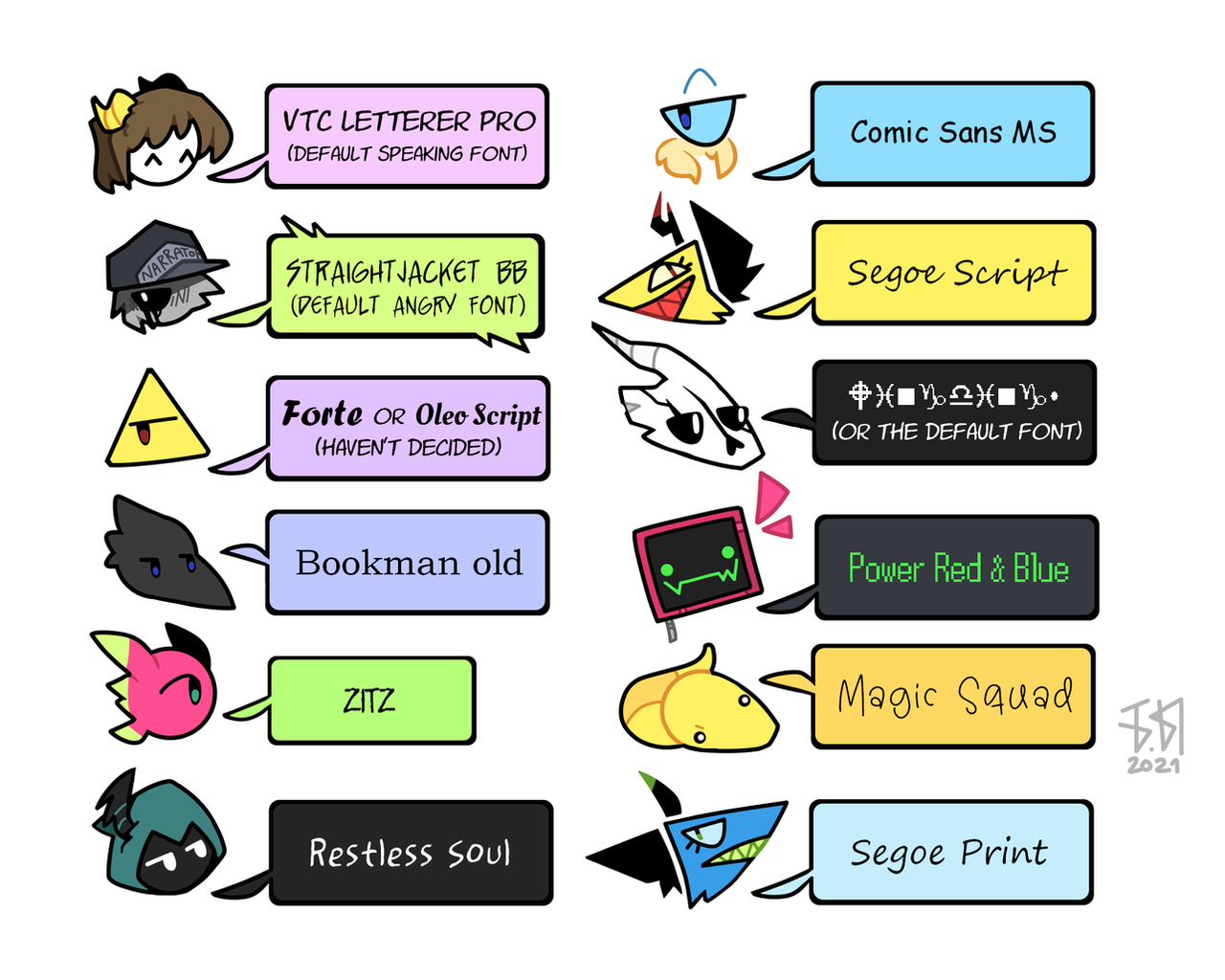
Don't know why, but I kinda like the idea of some of my OCs speaking in different fonts(counts for different moods too so that's why there's one angry one) so I made this chart in case of a comic or for random things I do.There're also some new faces in there too since I don't post everything I draw here >:])b